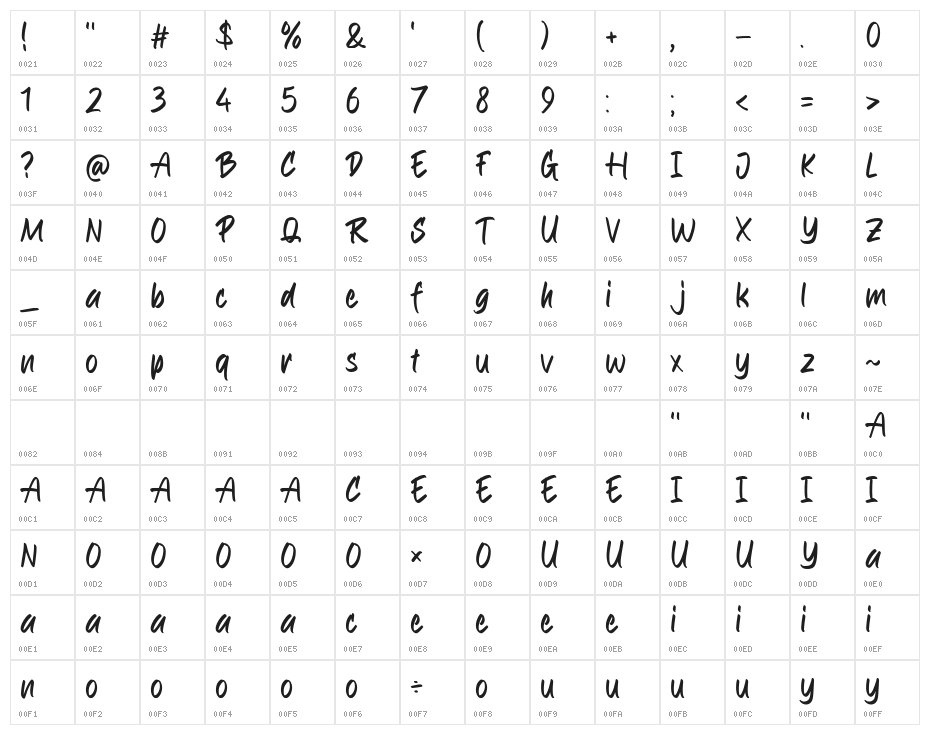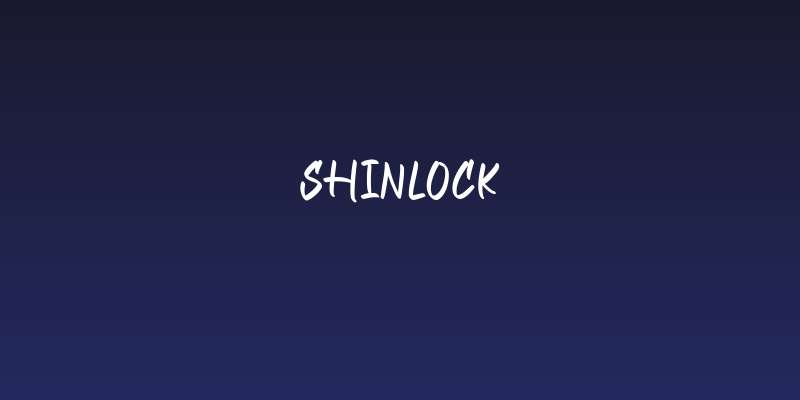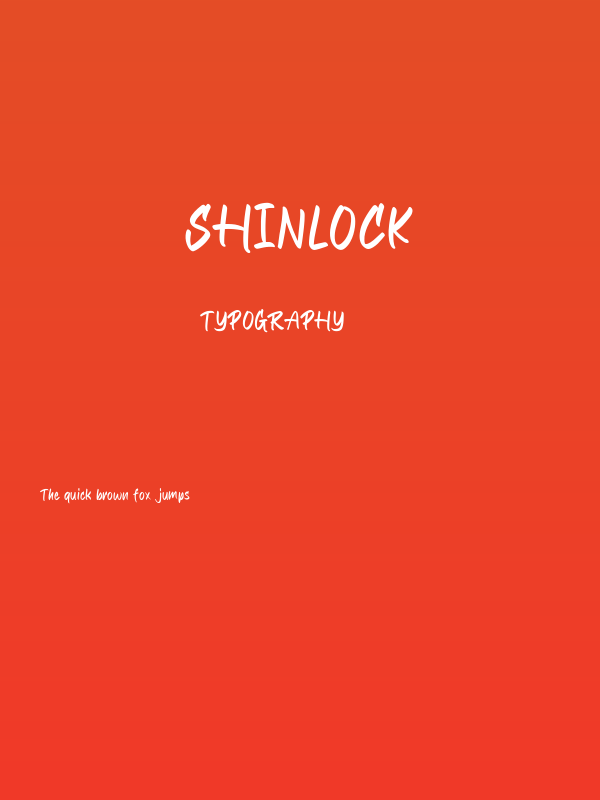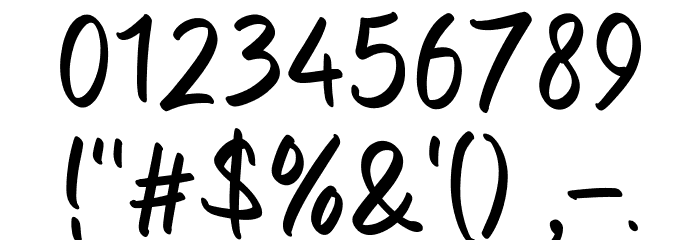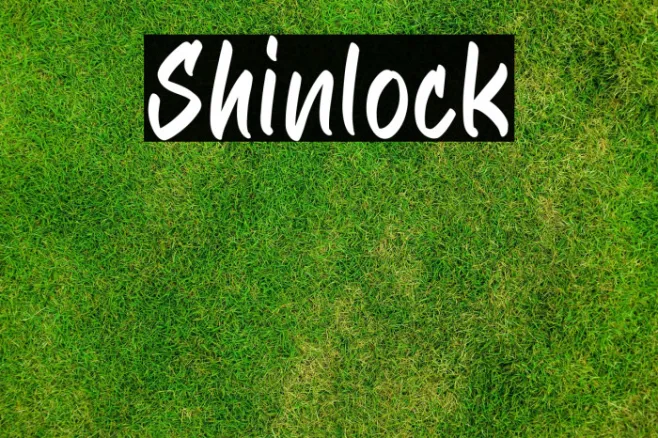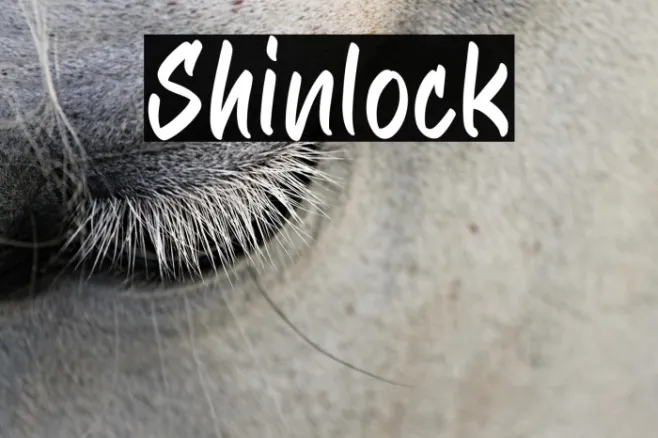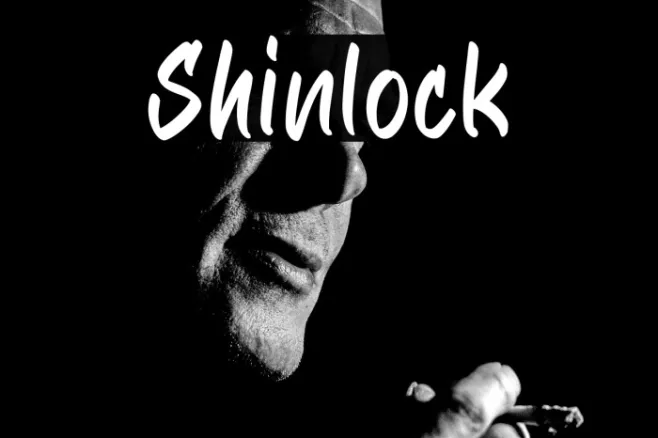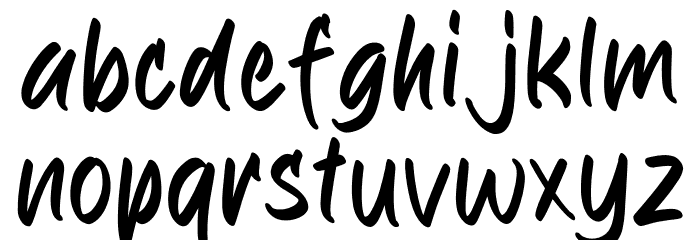
Shinlock Font
Shinlock Description
This font exhibits a lively and dynamic handwritten style, characterized by its fluid and slightly irregular strokes that mimic natural handwriting. The uppercase letters are bold and expressive, while the lowercase letters maintain a consistent flow, enhancing readability. The numerals and special characters are crafted with the same energetic flair, making them stand out. The overall appearance is casual yet confident, suitable for projects that require a personal touch. The font's playful nature is balanced with a clear structure, ensuring it remains legible across various applications.
| Overall Style | Casual, Energetic |
| Use Case | Headlines, Logos, Creative projects |
| Proposed Projects | Ideal for greeting cards, invitations, personal branding, and creative projects that benefit from a handwritten touch. |